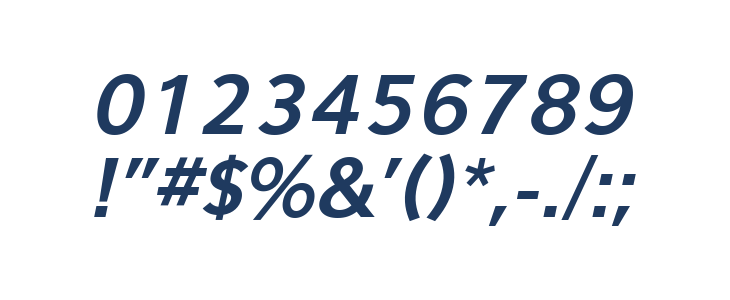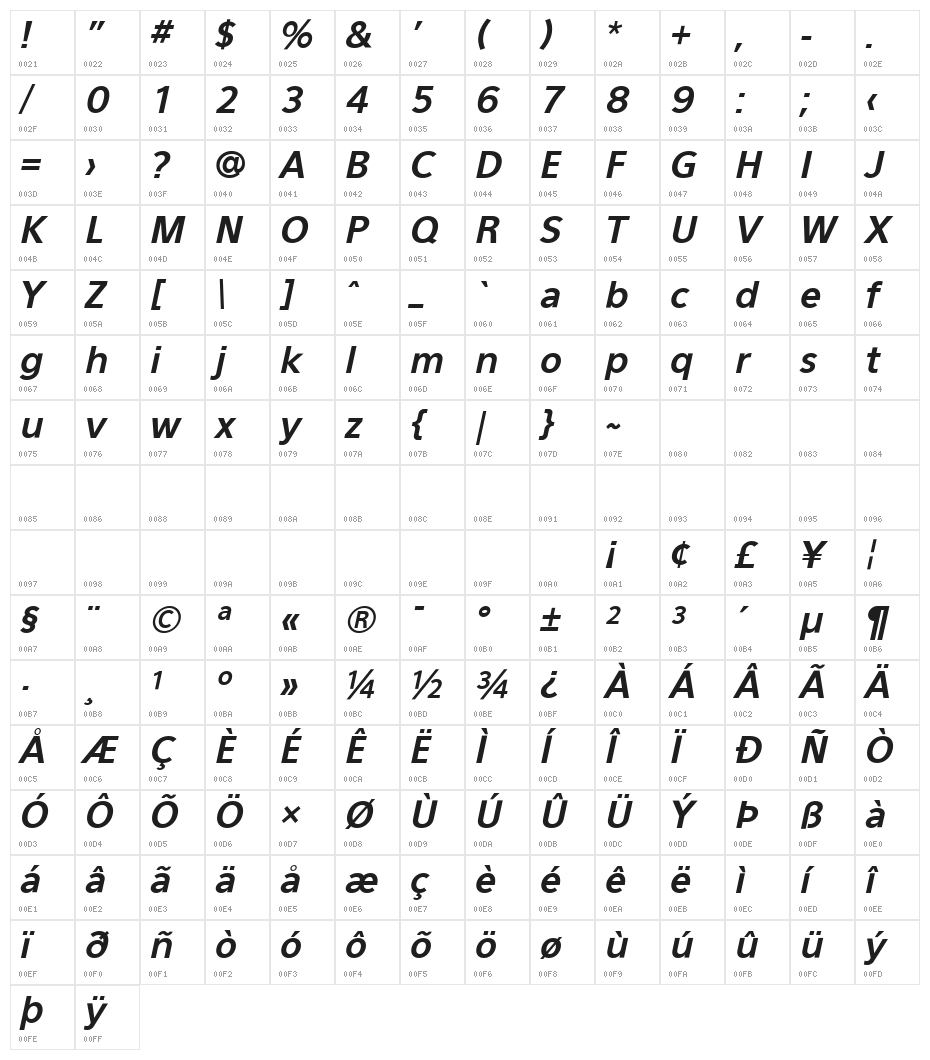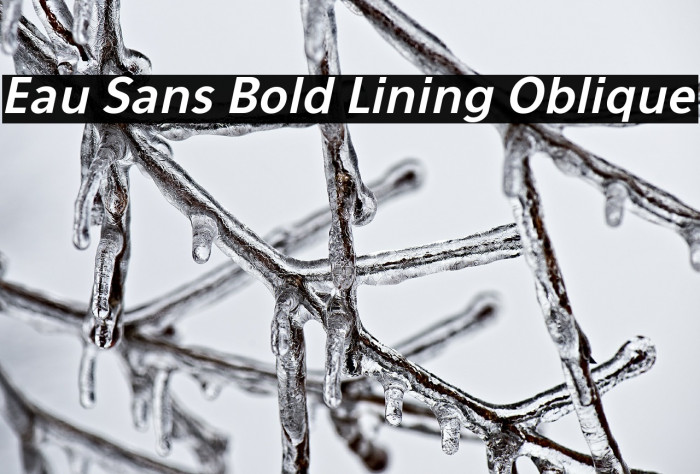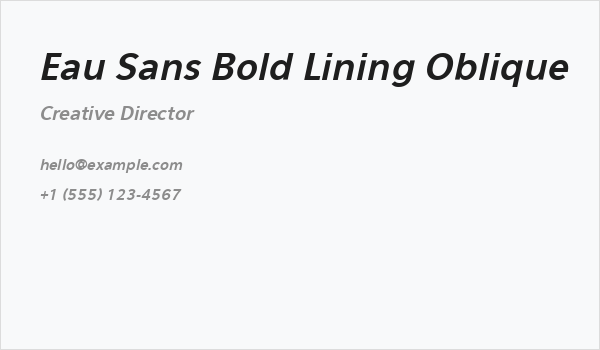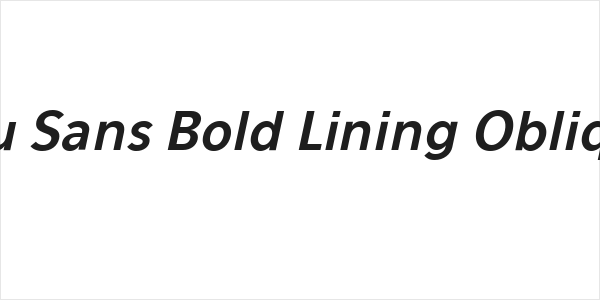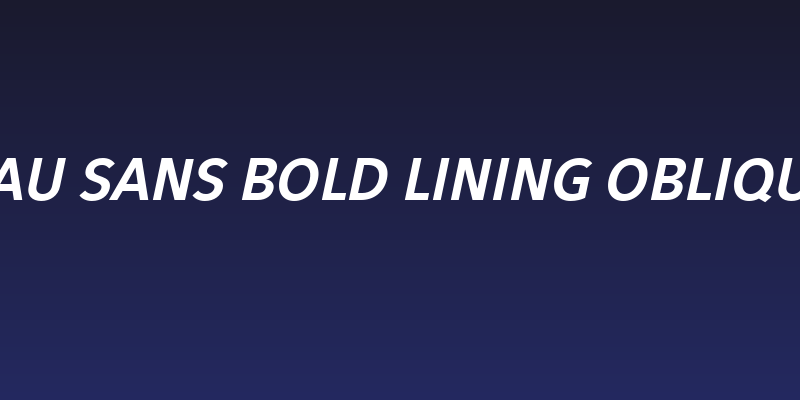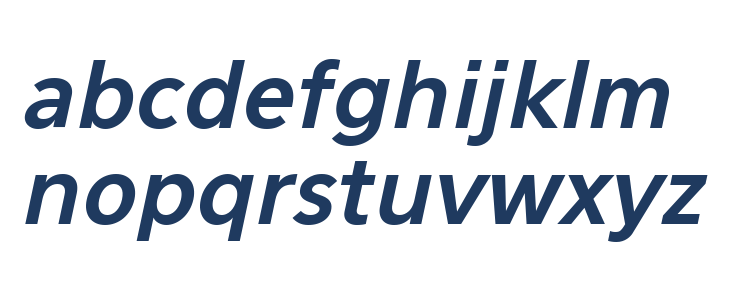
Eau Sans Bold Lining Oblique Font
Eau Sans Bold Lining Oblique Description
This font features a bold and oblique style, characterized by its clean and modern sans-serif design. The letters are slightly slanted, giving a dynamic and forward-moving appearance. The strokes are consistent in weight, providing a uniform look across all characters. The uppercase letters are tall and commanding, while the lowercase letters maintain a balanced and approachable feel. The numerals are clear and easy to read, making them suitable for various applications. Special characters are well-defined, enhancing the font's versatility. Overall, this font exudes a contemporary and professional vibe, suitable for a wide range of design projects.
| Use Case | Headlines, Logos, Advertising |
| Proposed Projects | Ideal for branding, advertising, headlines, and digital media projects that require a modern and professional look. |